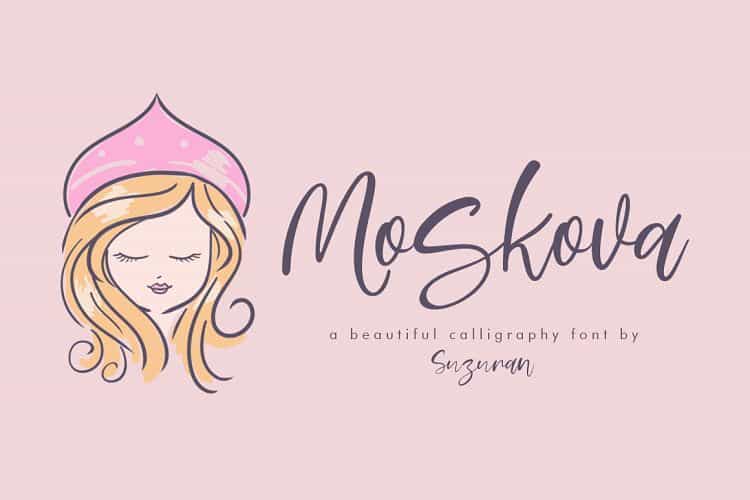
Introducing Moskova Font. Moskova script, a font that is very new and unique style handmade + bonus font, Night in Kansas & Free Pen Script for your project. Moskova script is a perfect choice for logo, stationery, poster, apparel branding, wedding invitation card and much more.